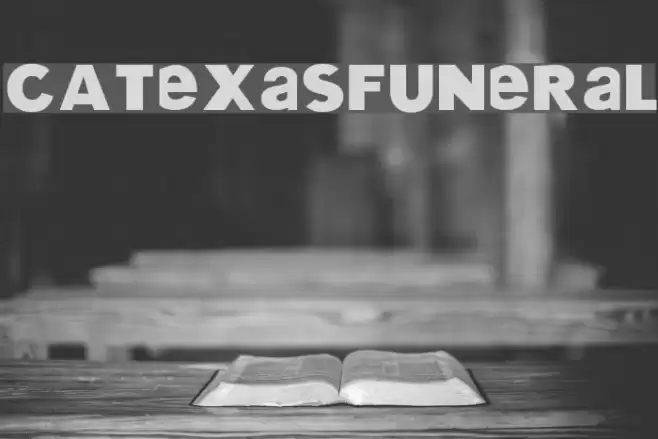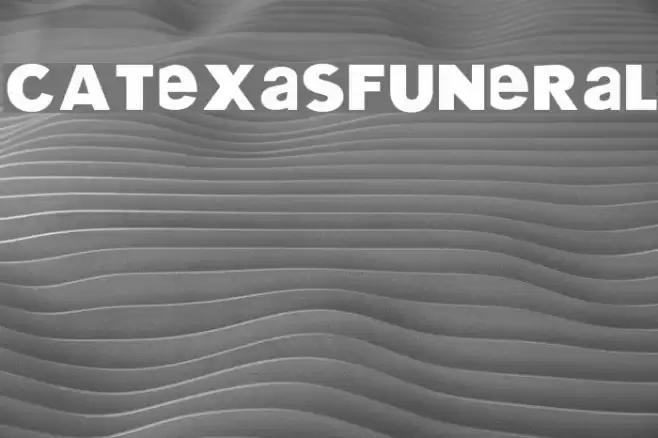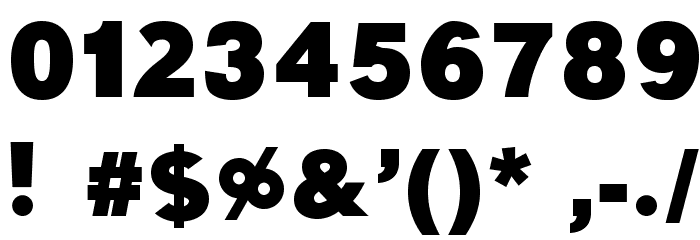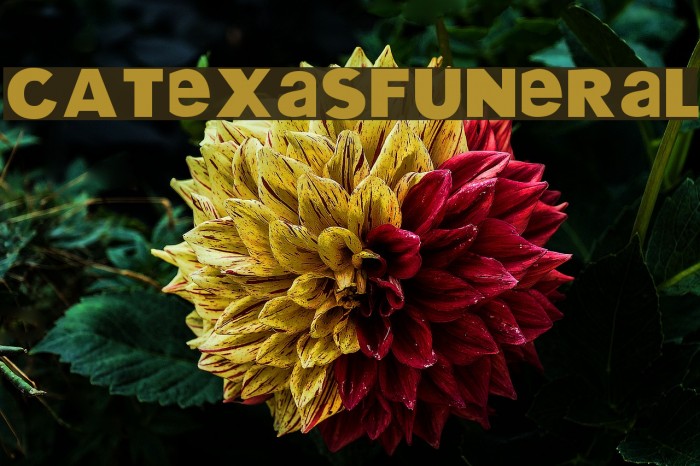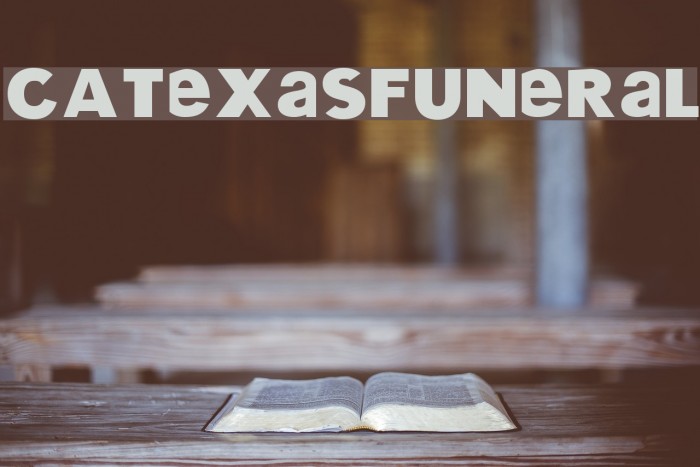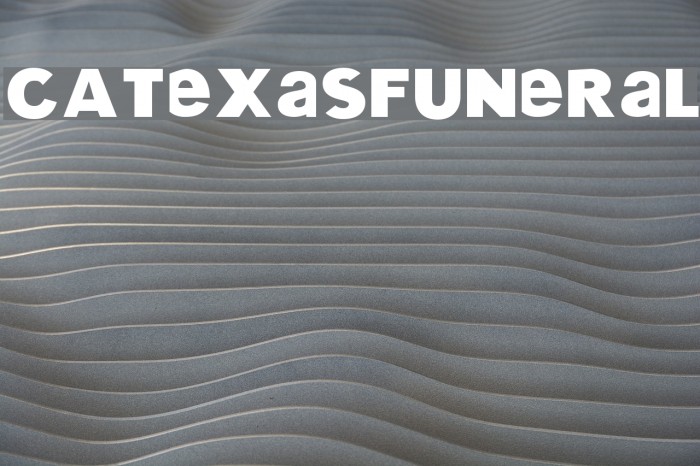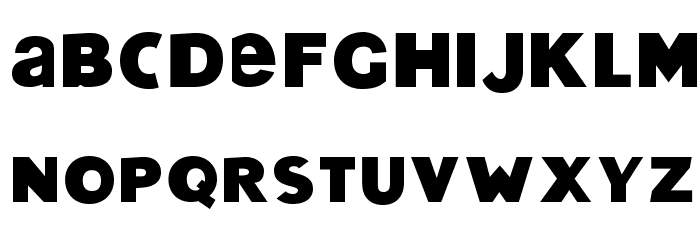
CATexasFuneral Font
This bold and impactful font features thick, uniform strokes that create a strong visual presence. The characters are well-defined with a slightly condensed appearance, making them ideal for attention-grabbing headlines. The uppercase and lowercase letters maintain a consistent style, with rounded edges that add a touch of softness to the otherwise robust design. The numerals are equally bold, ensuring they stand out in any context. Special characters are included, maintaining the same weight and style, providing versatility for various design needs.
A bold, impactful font with thick strokes and a slightly condensed style from Uncategorized fonts.